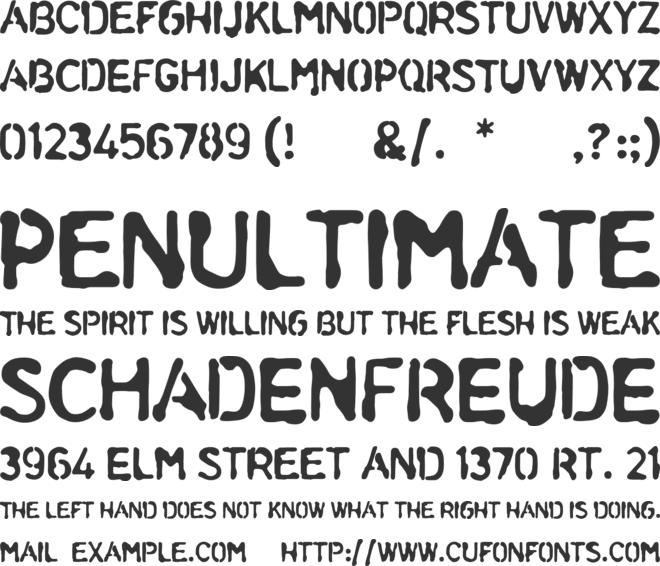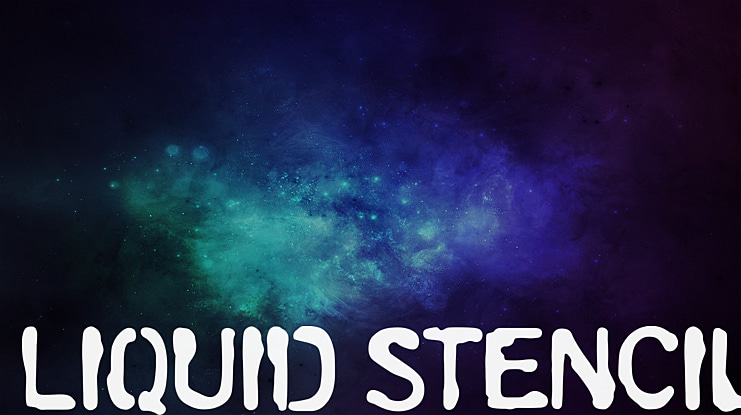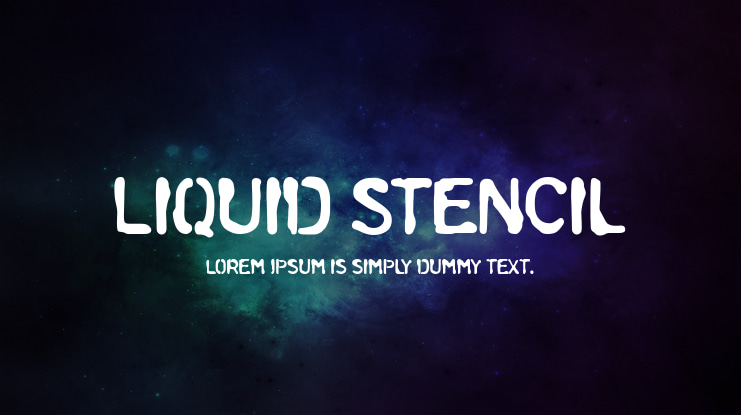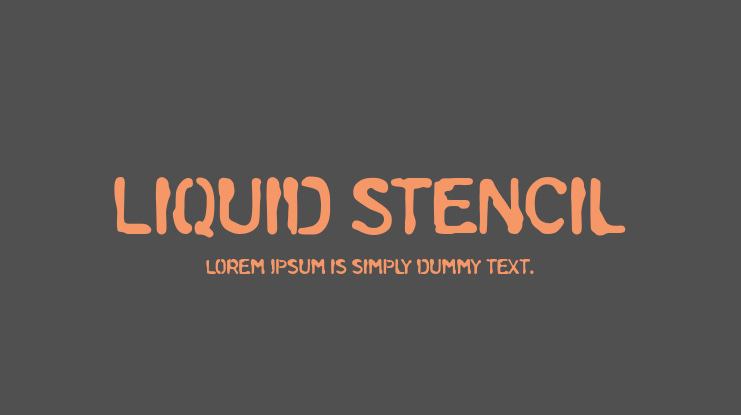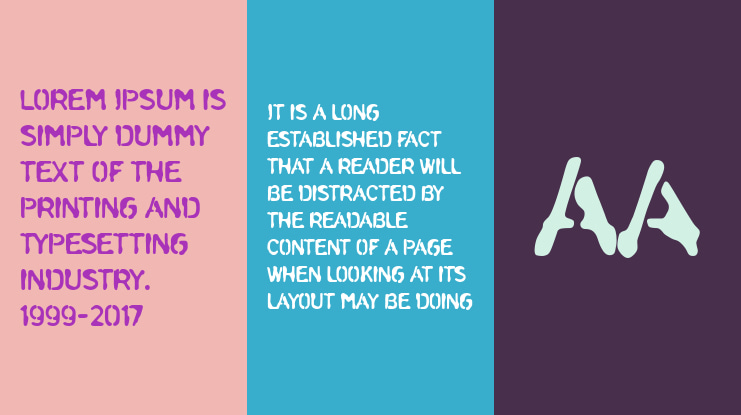
Liquid Stencil Font
Claudio Rocha
Liquid Stencil, with its wet and uneven stencil letters, was made with brush, indian ink and stencil ruler. Just that!
By Claudio Rocha & Lucas Franco, 1998-2000